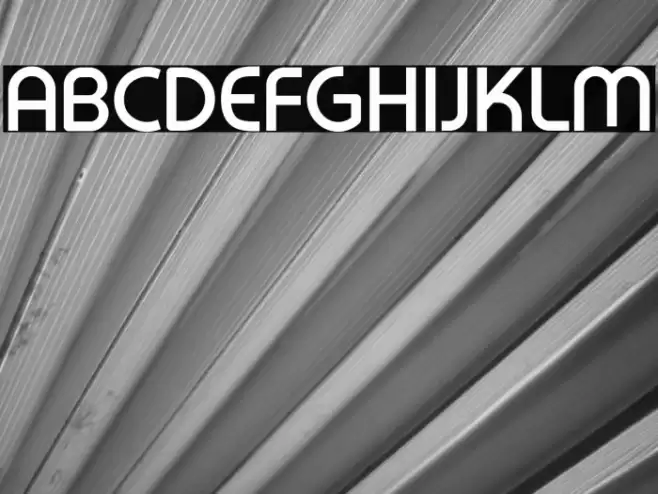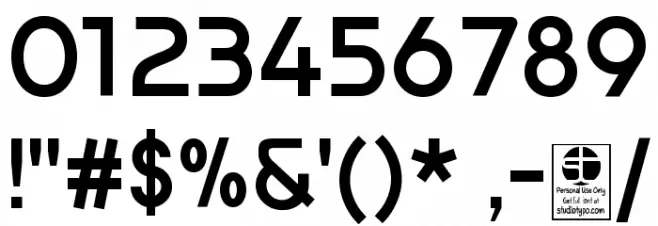
Prestij Demo Bold Font
Prestij Demo Bold Description
This font features a bold and modern sans-serif style with clean, rounded edges and a geometric structure. The characters are evenly spaced, providing a balanced and harmonious appearance. The uppercase letters are slightly taller than the lowercase, maintaining a consistent width throughout. The numerals are clear and legible, matching the overall aesthetic of the alphabet. Special characters are well-integrated, ensuring versatility in various design contexts. This font's boldness and clarity make it suitable for impactful headlines and branding.
A bold, modern sans-serif font with clean, rounded edges and geometric structure from Uncategorized fonts.